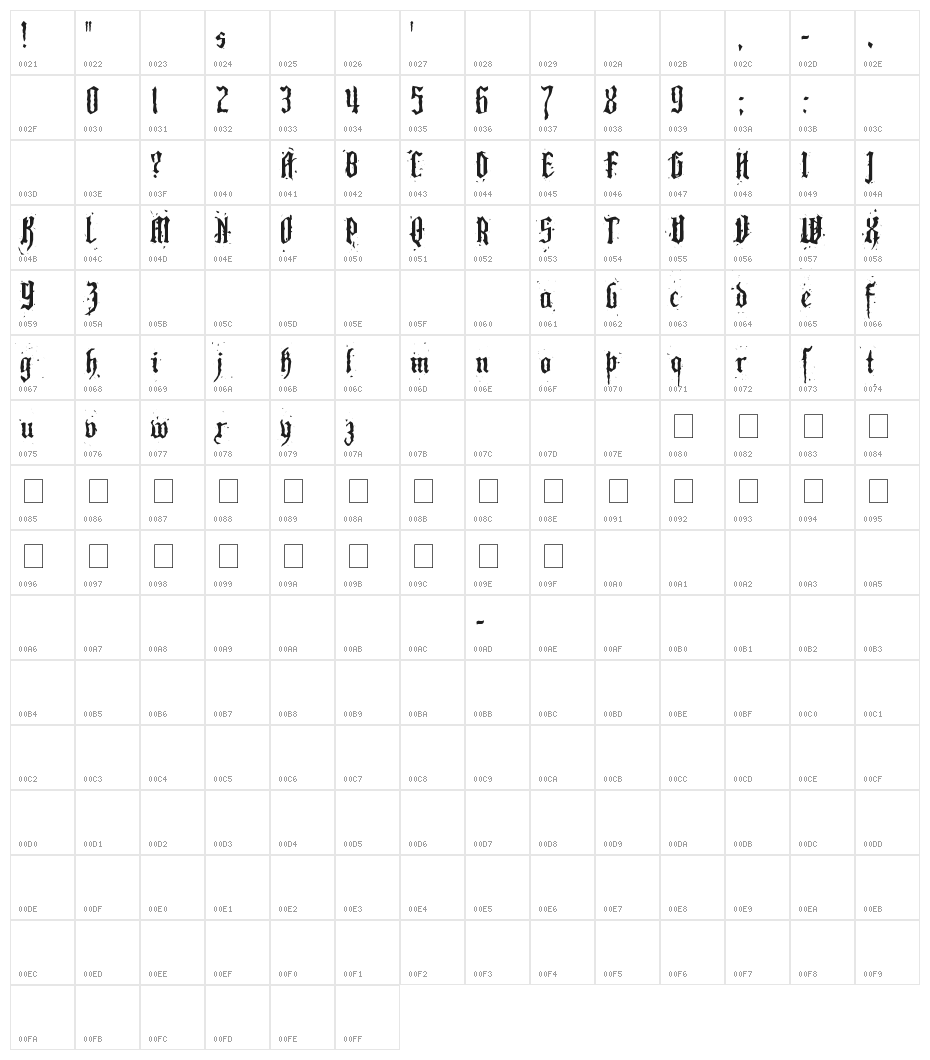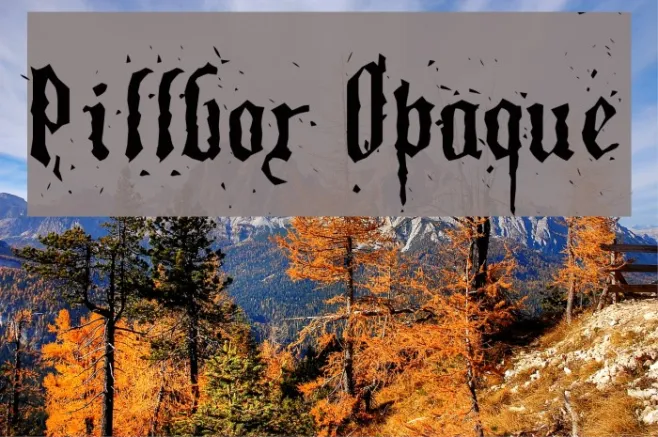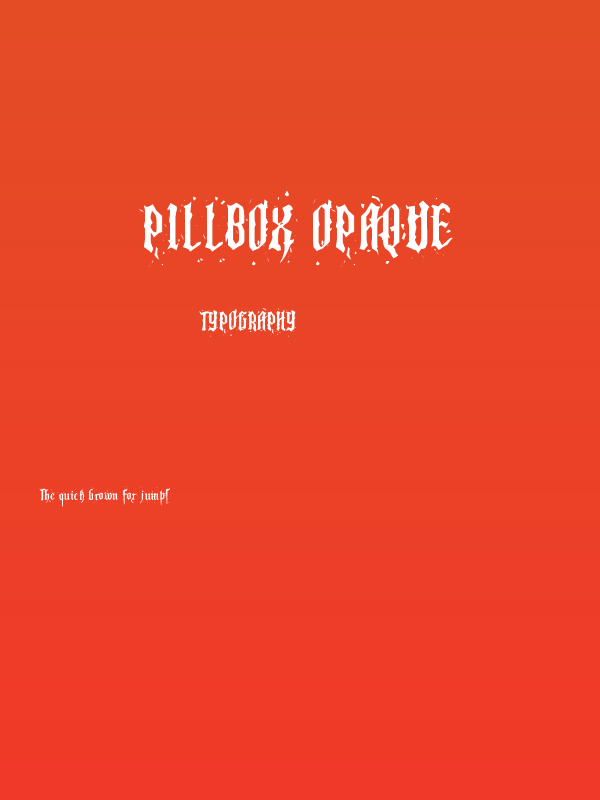
Pillbox Opaque Font
Pillbox Opaque Description
This font features a bold and dramatic style reminiscent of traditional Blackletter typefaces. The characters are intricately designed with sharp, angular lines and ornate details, creating a sense of historical gravitas and formality. The uppercase letters are particularly striking, with elaborate flourishes that enhance their visual impact. The lowercase letters maintain the same level of detail, ensuring consistency throughout the typeface. Numbers and special characters are equally well-crafted, making this font versatile for various applications. Overall, it exudes a gothic and medieval aesthetic, perfect for projects that require a touch of elegance and tradition.
| Use Case | Headlines, Logos, Decorative purposes |
| Proposed Projects | Ideal for historical documents, wedding invitations, book covers, and branding that requires a classic or medieval touch. |